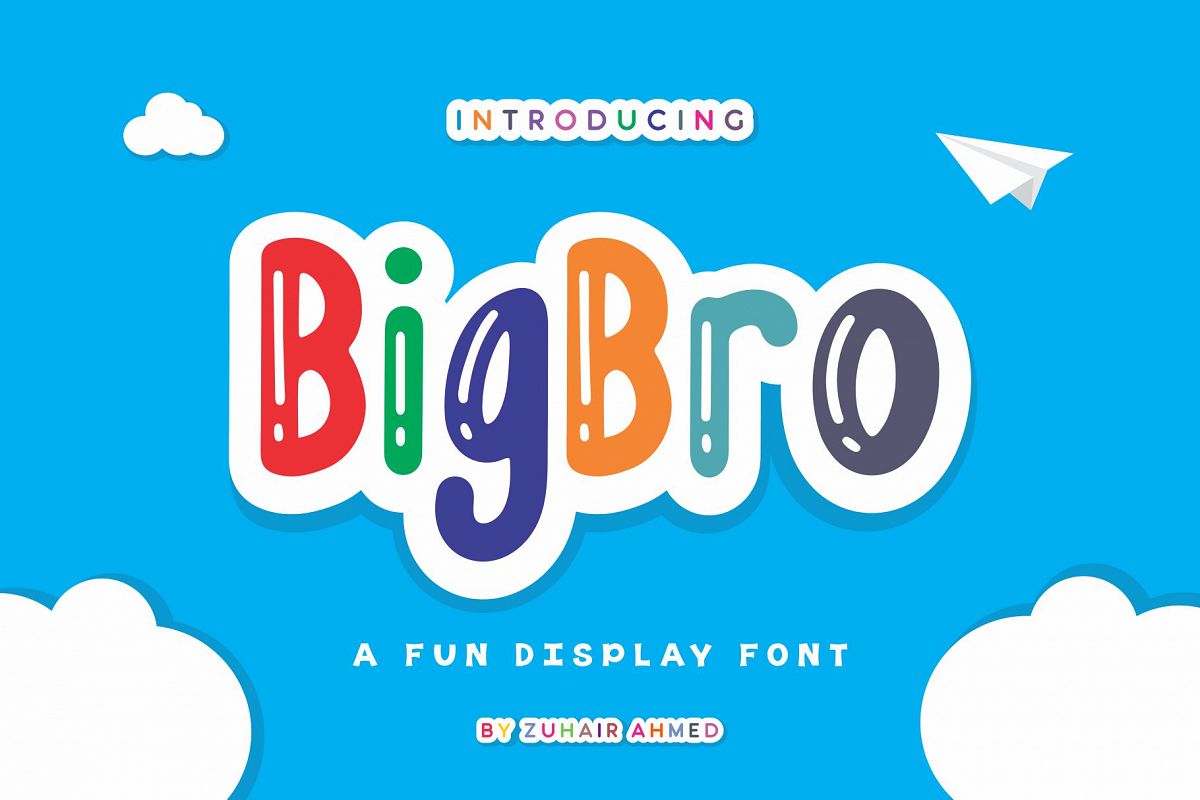
BigBro - A Fun Display Font
BigBro is an incredibly child-friendly and whimsical display font with
an authentic touch. Get inspired by its one-of-a-kind charm.